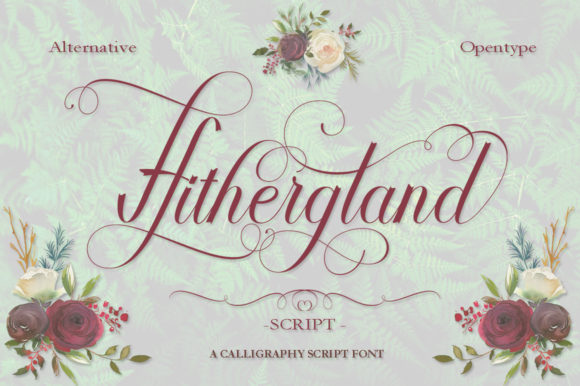
Hithergland Script Font
Hithergland Script Font is perfect for elegant wedding invitations, sophisticated stationery designs, upscale boutique branding, refined calligraphy services, luxury event materials, graceful social media graphics, distinguished greeting cards, premium beauty products, exclusive brand identities, and cultivated lifestyle communications.
Hithergland Script Font creates excitement because it embodies the timeless elegance and sophisticated grace of masterful calligraphy with its flowing script letterforms and refined character design. The font's elegant curves and aristocratic aesthetic instantly convey distinction and cultural sophistication, making any brand appear prestigious and authentically refined. Its carefully crafted calligraphic details and graceful character create an immediate sense of cultured elegance that captivates audiences seeking sophisticated experiences, refined quality, and products that celebrate the exquisite artistry of traditional penmanship and elegant design excellence.
The Hithergland Script Font family includes multiple weights and styles: Regular, Bold, Light, Medium, Italic, Condensed, Extended, Elegant, Graceful, and Distinguished versions. Each variant maintains the font's signature sophisticated character while offering different levels of calligraphic refinement and elegant styling suitable for various luxury and formal applications.
This exquisite typeface brings the authentic spirit of refined calligraphy into contemporary luxury design with remarkable sophistication and elegant appeal. Hithergland Script Font Free Download provides luxury brands and sophisticated organizations with access to premium script typography that embodies the essence of calligraphic mastery and cultural refinement. The font's elegant design and sophisticated authenticity make it ideal for businesses seeking to establish meaningful connections with discerning audiences who appreciate fine craftsmanship, cultural sophistication, and the transformative power of elegant design that reflects true refinement. Whether you're creating materials for luxury events, designing communications for prestigious organizations, developing branding for sophisticated services, or producing content for refined lifestyle brands, this font delivers the cultured atmosphere that resonates with audiences seeking genuine elegance, sophisticated quality, and the timeless beauty that comes from authentic calligraphic artistry. Its versatile design ensures outstanding performance across both precious printed materials and elegant digital applications while maintaining the character of authentic calligraphic typography. The font excels in applications requiring cultural credibility and sophisticated appeal. Luxury professionals appreciate its ability to convey refined elegance while remaining highly functional for various sophisticated communications and prestigious promotional materials. The comprehensive character set includes elegant flourishes and extensive international language support, making it perfect for global luxury brands and international cultural organizations seeking to communicate authentic sophistication, calligraphic excellence, and refined elegance to discerning worldwide audiences who value cultural refinement, appreciate artistic craftsmanship, and seek the transformative beauty of genuine calligraphic artistry that elevates every communication to the highest standards of elegant sophistication and cultural distinction.